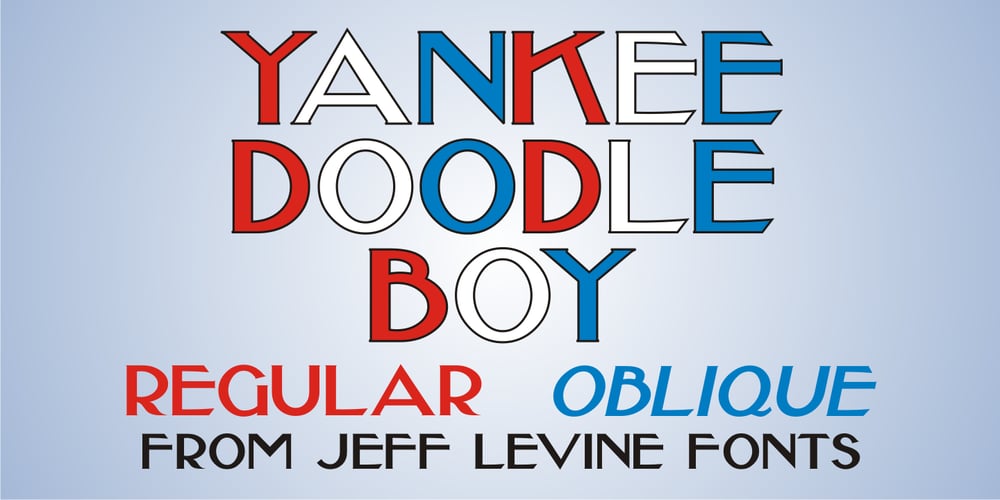
Yankee Doodle Boy JNL Font Family was designed by Jeff Levine and published by Jeff Levine. Yankee Doodle Boy JNL contains 2 styles and family package options. In the early years of the 20th Century, singer-dancer-actor-composer-playwright George M. Cohan was known as “The Man Who Owned Broadway”. In 1904, Cohan was enjoying success with his latest creation, “Little Johnny Jones”. Cohan gave America what would become a number of iconic songs, and both he and his compositions were immortalized in the 1942 biographical film “Yankee Doodle Dandy” starring James Cagney. The Art Nouveau-influenced hand lettering of the title on the cover of the sheet music for “The Yankee Doodle Boy” was the model for its namesake digital typeface design and is available in both regular and oblique versions.